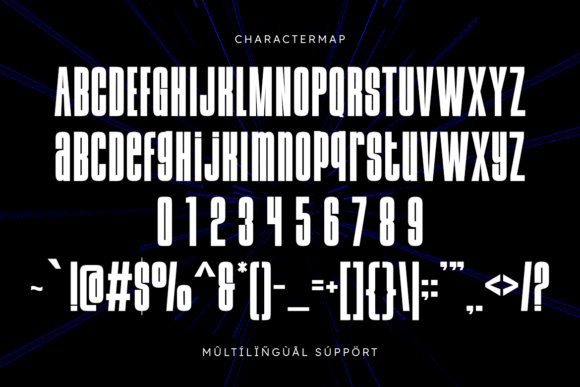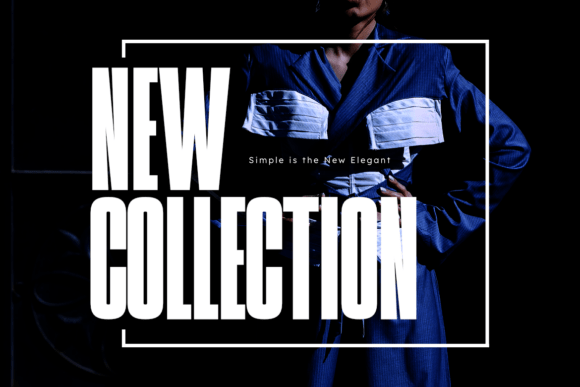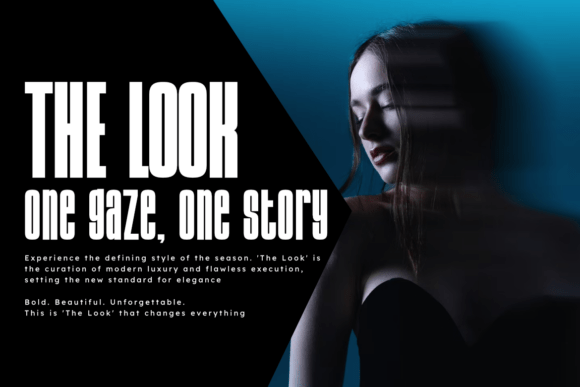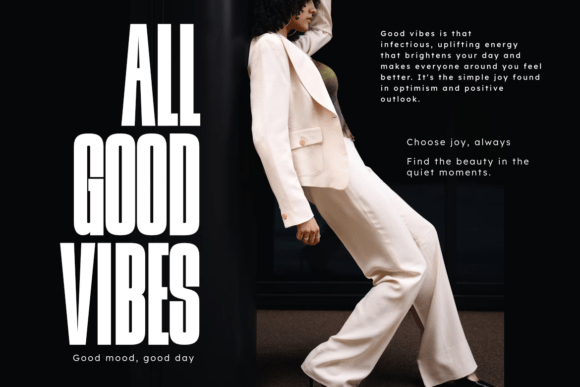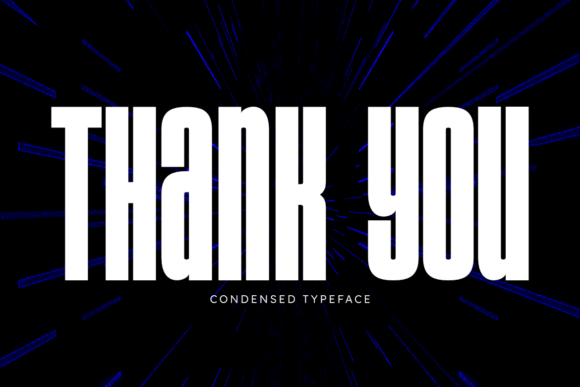
Couture Font: Elevate Your Design with Bold and Stylish Typography
In the world of typography, a font can make or break a design. When it comes to creating a lasting impression, designers and crafters need a font that exudes confidence, precision, and modernity. This is where Couture Font comes in – a bold and stylish narrow sans serif font designed to add a touch of sophistication and power to any project.
Clean Geometry and Tall Proportions
Couture Font boasts clean geometry and tall proportions, making it the perfect choice for designers looking to add a sense of elegance and refinement to their work. The font’s narrow sans serif design ensures that it remains stylish and modern, while its bold and confident appearance demands attention and makes a lasting impact.
Perfect for Sports Branding, Luxury Fashion, and Editorial Headlines
Couture Font is an incredibly versatile font that can be used in a variety of design applications. Its bold and stylish appearance makes it perfect for sports branding, where it can add a sense of strength and energy to team logos, jerseys, and marketing materials. Similarly, luxury fashion brands can benefit from Couture’s elegant and refined design, using it to create stunning editorial headlines, posters, and advertisements.
Key Features of Couture Font
- Bold and Stylish Design: Couture Font features a bold and stylish narrow sans serif design that adds a sense of confidence and precision to any project.
- Clean Geometry: The font’s clean geometry ensures that it remains modern and elegant, making it perfect for a variety of design applications.
- Tall Proportions: Couture Font’s tall proportions make it stand out from other fonts, adding a sense of sophistication and refinement to any design.
- Versatile: The font can be used in a variety of design applications, including sports branding, luxury fashion, editorial headlines, posters, and logo designs.
Why Choose Couture Font?
With so many fonts available, why choose Couture Font for your next design project? Here are just a few reasons why Couture stands out from the rest:
- Unique and Memorable: Couture Font’s bold and stylish design ensures that your project will stand out from the crowd and leave a lasting impression.
- Elegant and Refined: The font’s clean geometry and tall proportions add a sense of sophistication and refinement to any design.
- Easy to Read: Despite its bold and stylish appearance, Couture Font remains easy to read, making it perfect for use in editorial headlines, posters, and other design applications.
Tips for Using Couture Font
To get the most out of Couture Font, here are a few tips to keep in mind:
- Use it as a Statement Font: Couture Font is perfect for use as a statement font, adding a bold and stylish touch to any design.
- Pair it with Other Fonts: Experiment with pairing Couture Font with other fonts to create a unique and eye-catching design.
- Adjust the Size and Color: Don’t be afraid to experiment with different sizes and colors to find the perfect combination for your design.
Couture Font is a bold and stylish narrow sans serif font designed to add a touch of sophistication and power to any project. With its clean geometry, tall proportions, and versatile design, Couture is perfect for sports branding, luxury fashion, editorial headlines, posters, and logo designs that demand attention and power. Whether you’re a designer or crafter, Couture Font is a must-have addition to your typography toolkit.